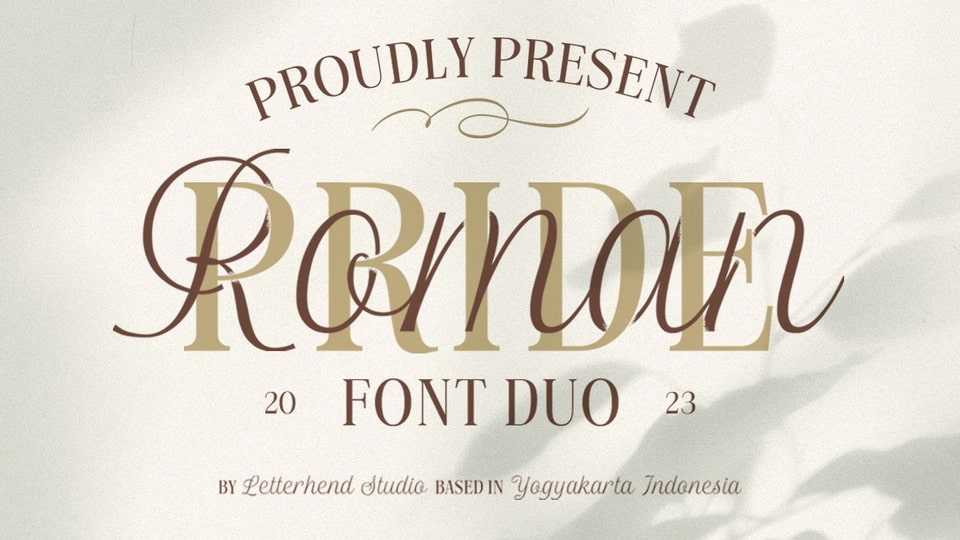
Download Roman Pride font, a fresh and stylish typefaces that features an elegant serif and a charming script. The combination of the two fonts creates a perfect harmony that is both classic and modern.